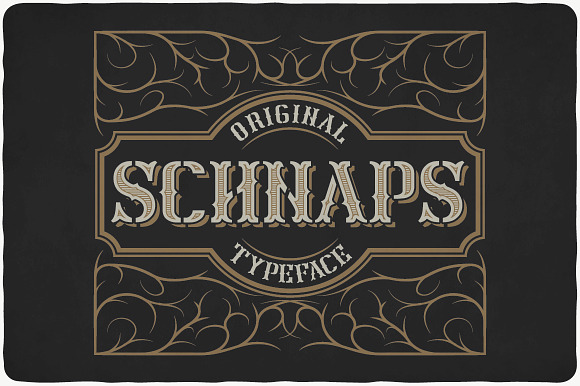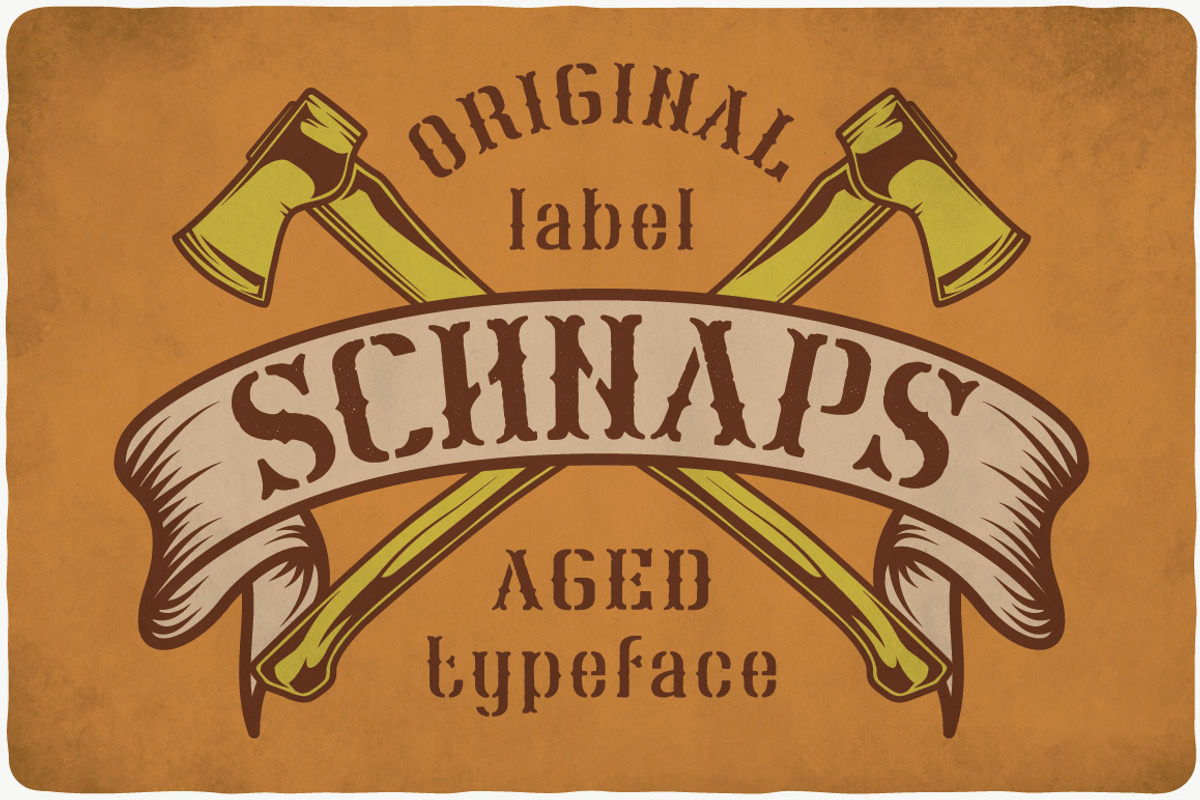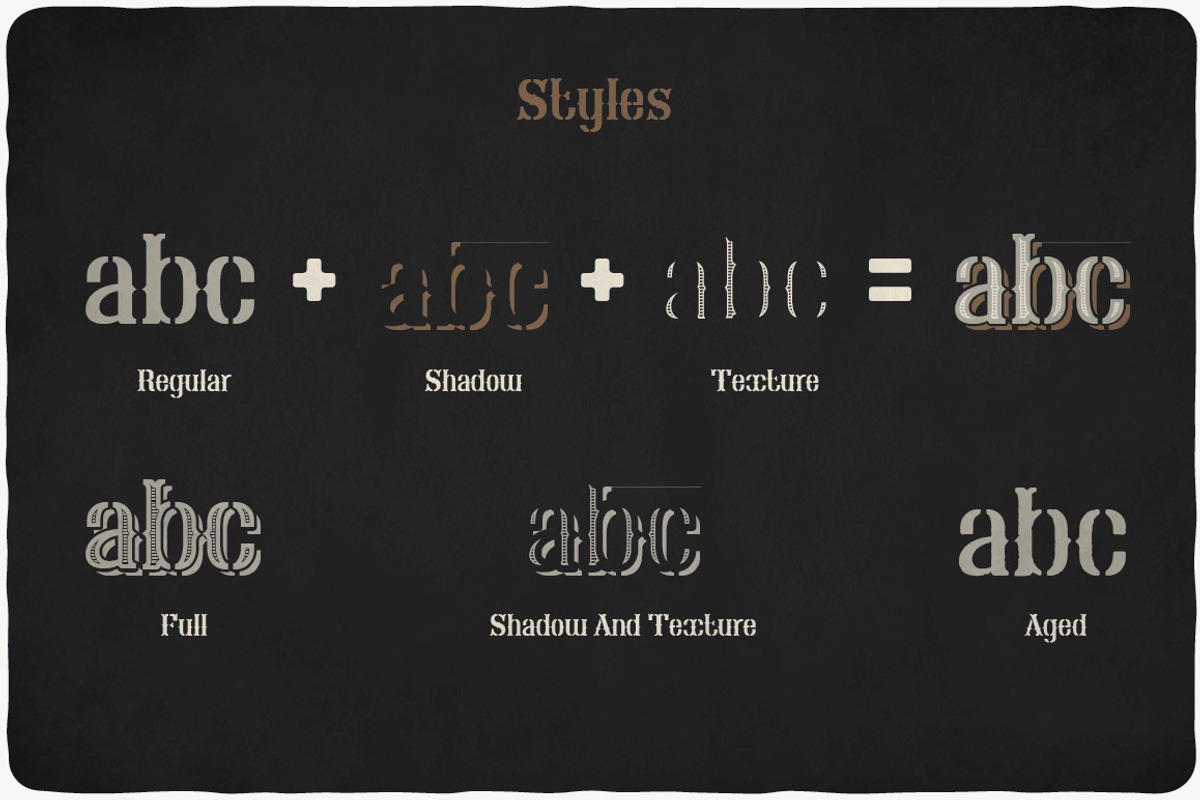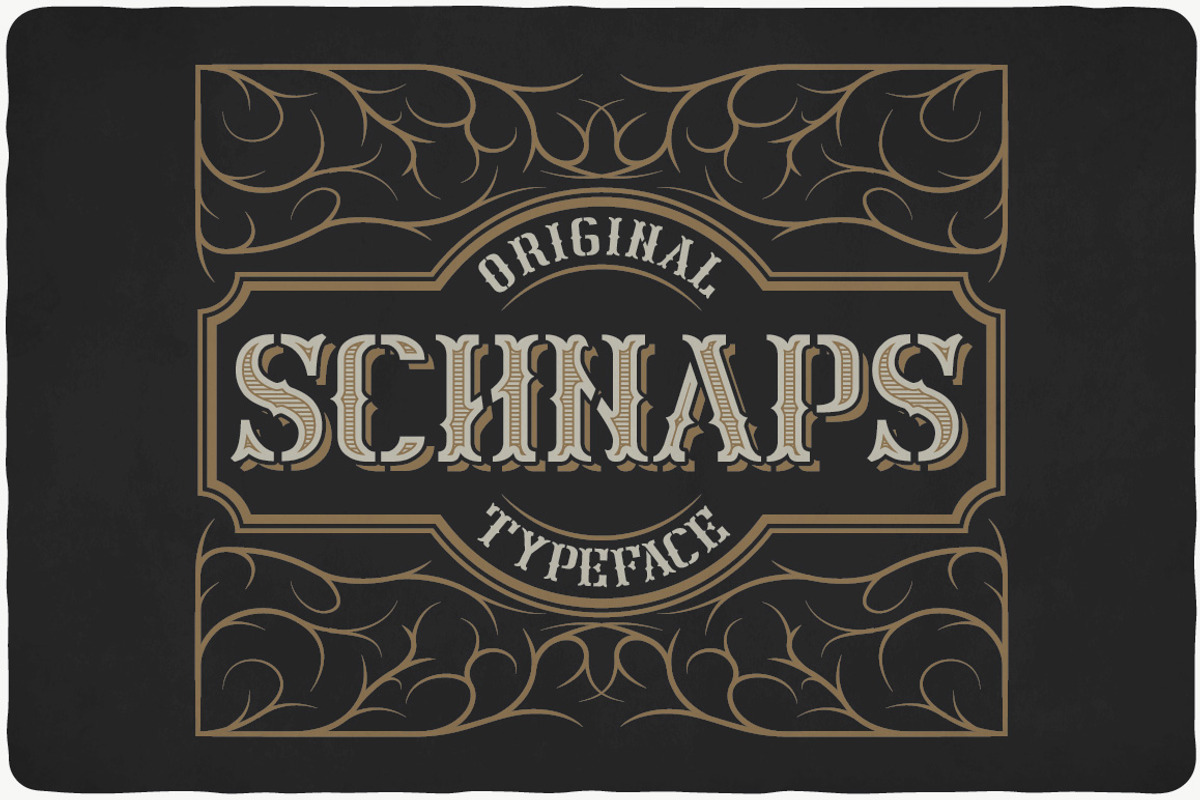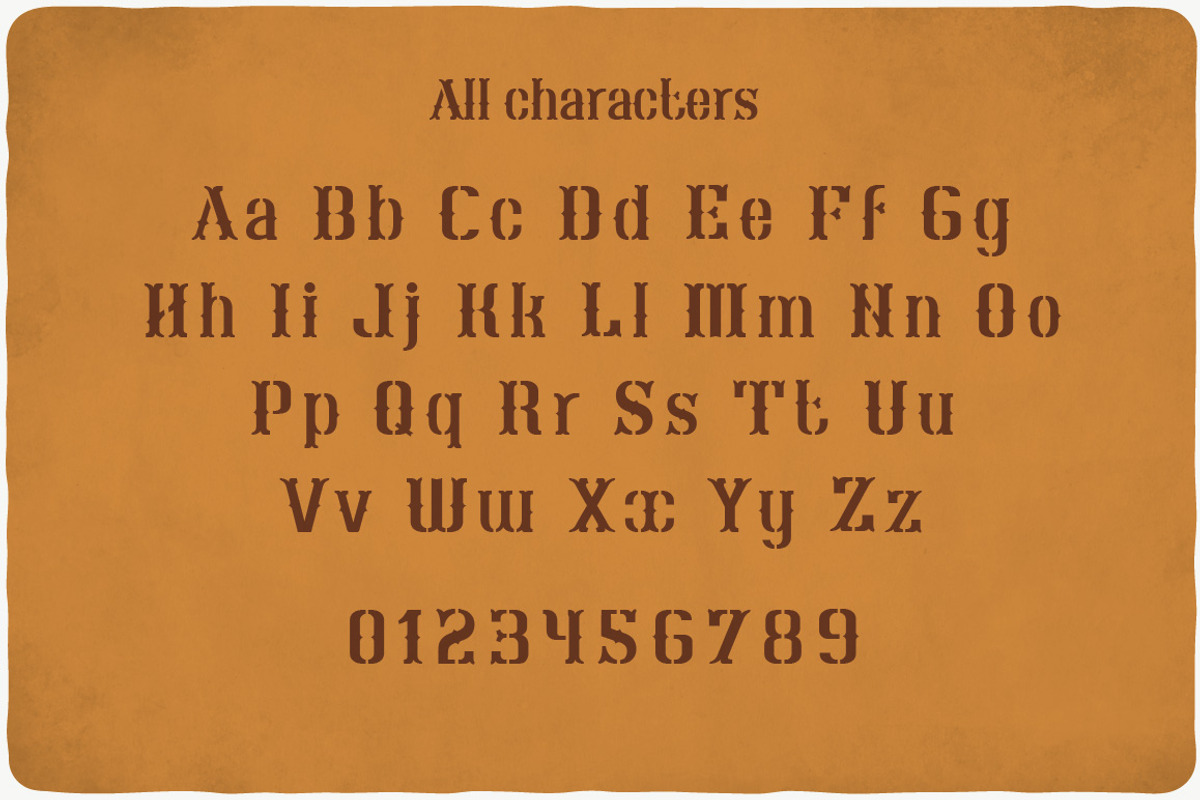
Schnaps Typeface
Introducing a vintage look label typeface named "Schnaps". This typeface contains layers - texture and shadow, for sample look at 4th preview. Plus aged (distressed) version. Typeface is good viewed on any yours design.
- This typeface contains layers - texture and shadow, for sample look at 4th preview.
- Schnaps Regular
- Schnaps Aged
- Schnaps Full
- Schnaps Shadow
- Schnaps Texture
- Schnaps Texture Shadow
Schnaps Typeface by VozzyStock fits naturally into Branding, posters, packaging, typography.